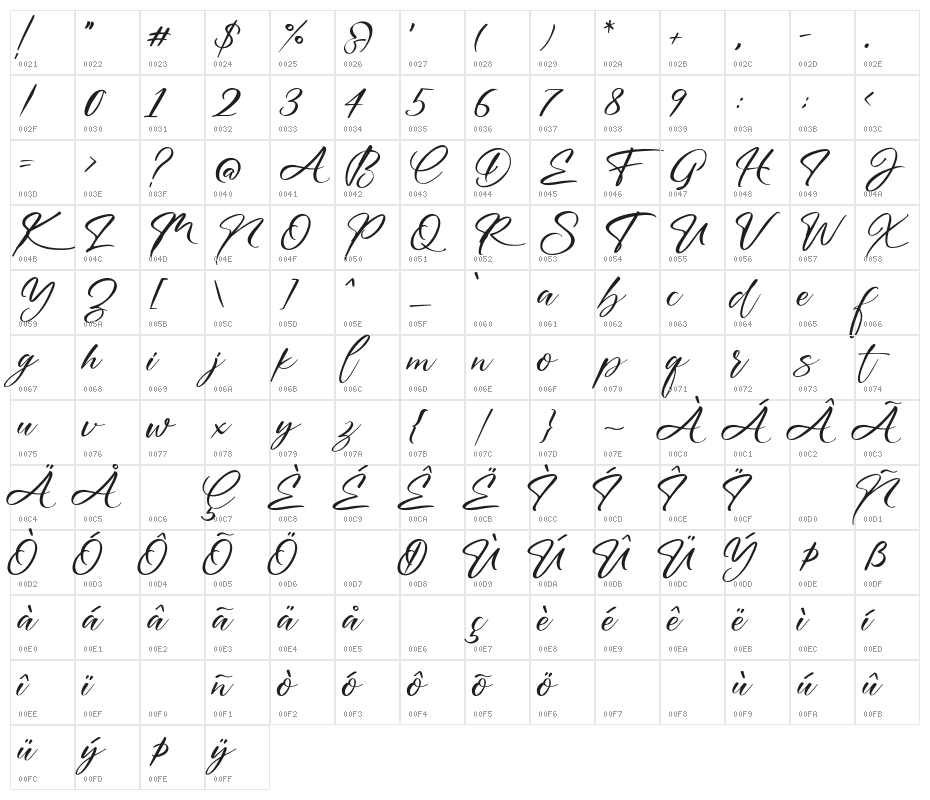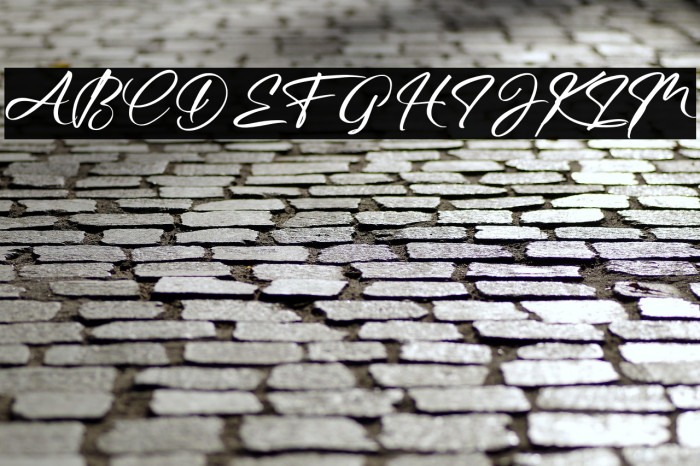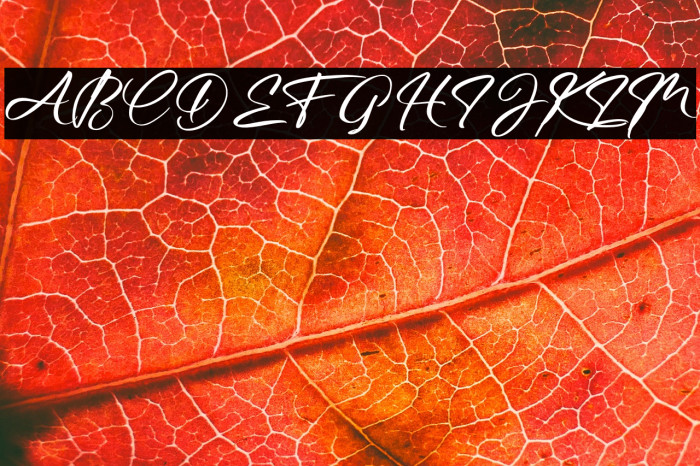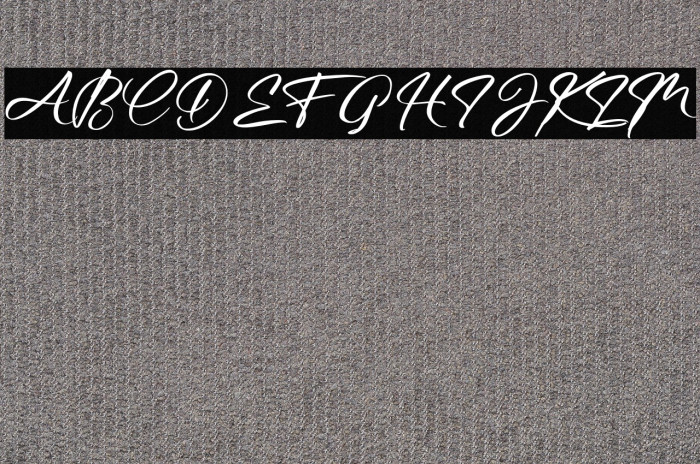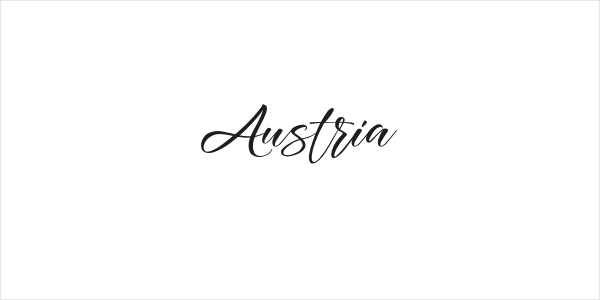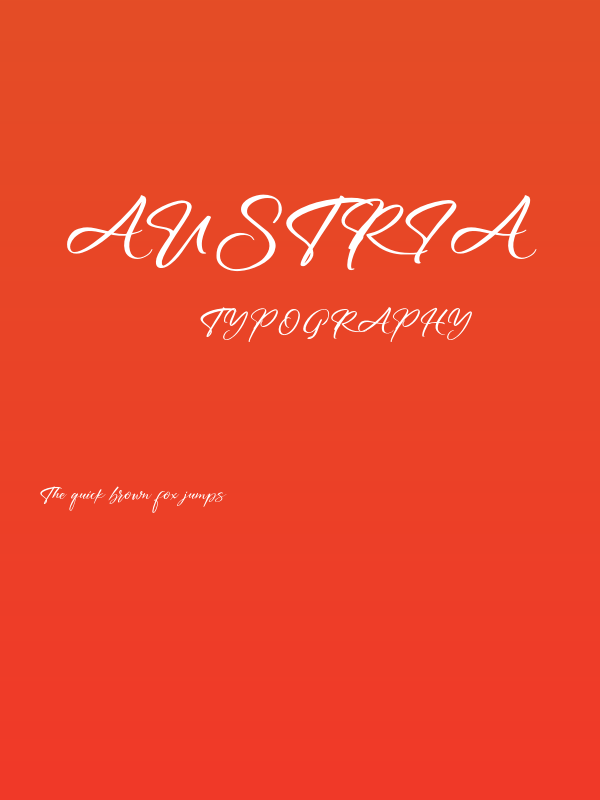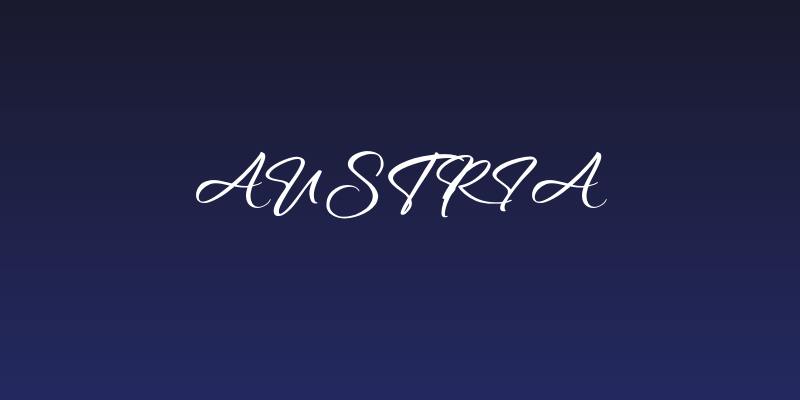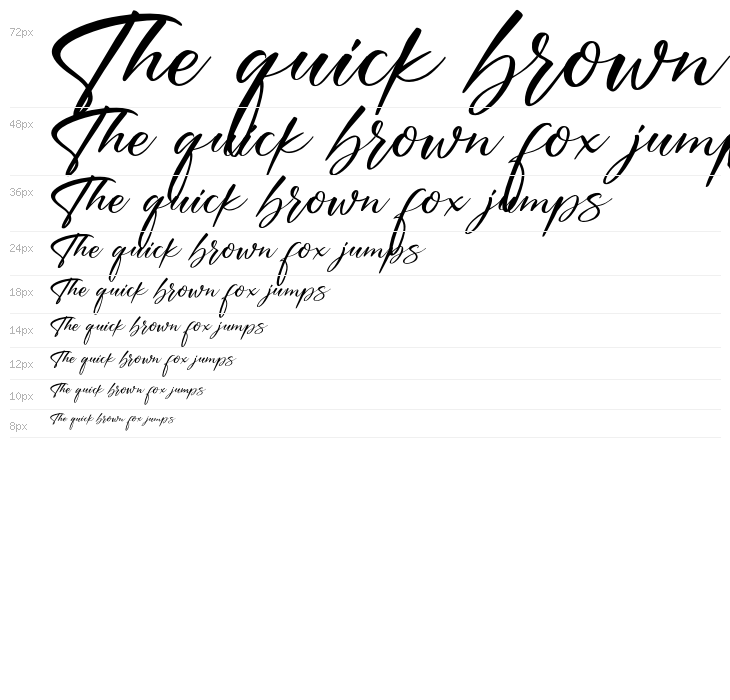
Austria Font
Austria Description
This font exudes elegance and fluidity, characterized by its cursive script style. The letters are interconnected with smooth, flowing strokes that give it a handwritten appearance. The uppercase letters are slightly more ornate, with decorative flourishes that enhance their visual appeal. The lowercase letters maintain a consistent flow, making them easily readable despite their decorative nature. The numerals and special characters are crafted with the same attention to detail, ensuring a cohesive look across all characters. This font is perfect for projects that require a touch of sophistication and personality.